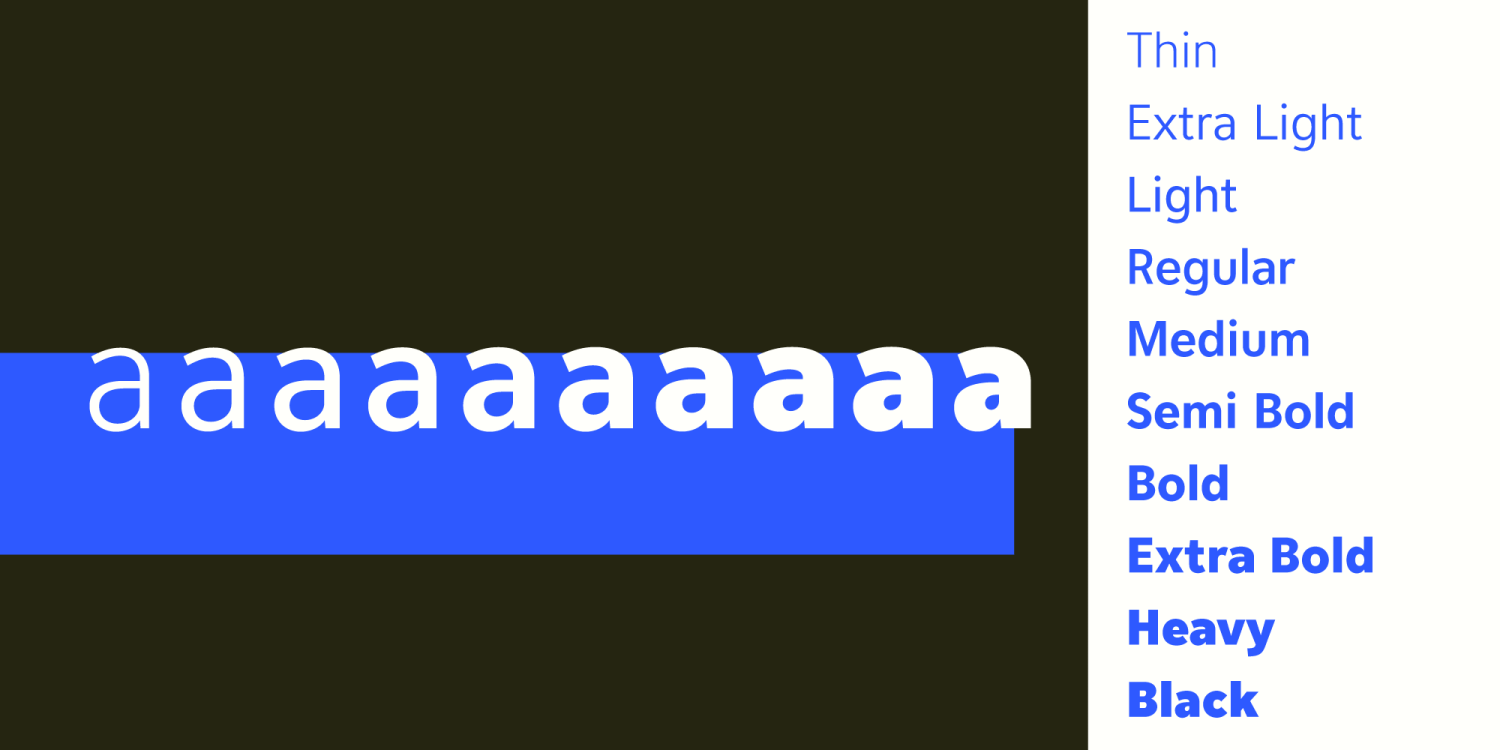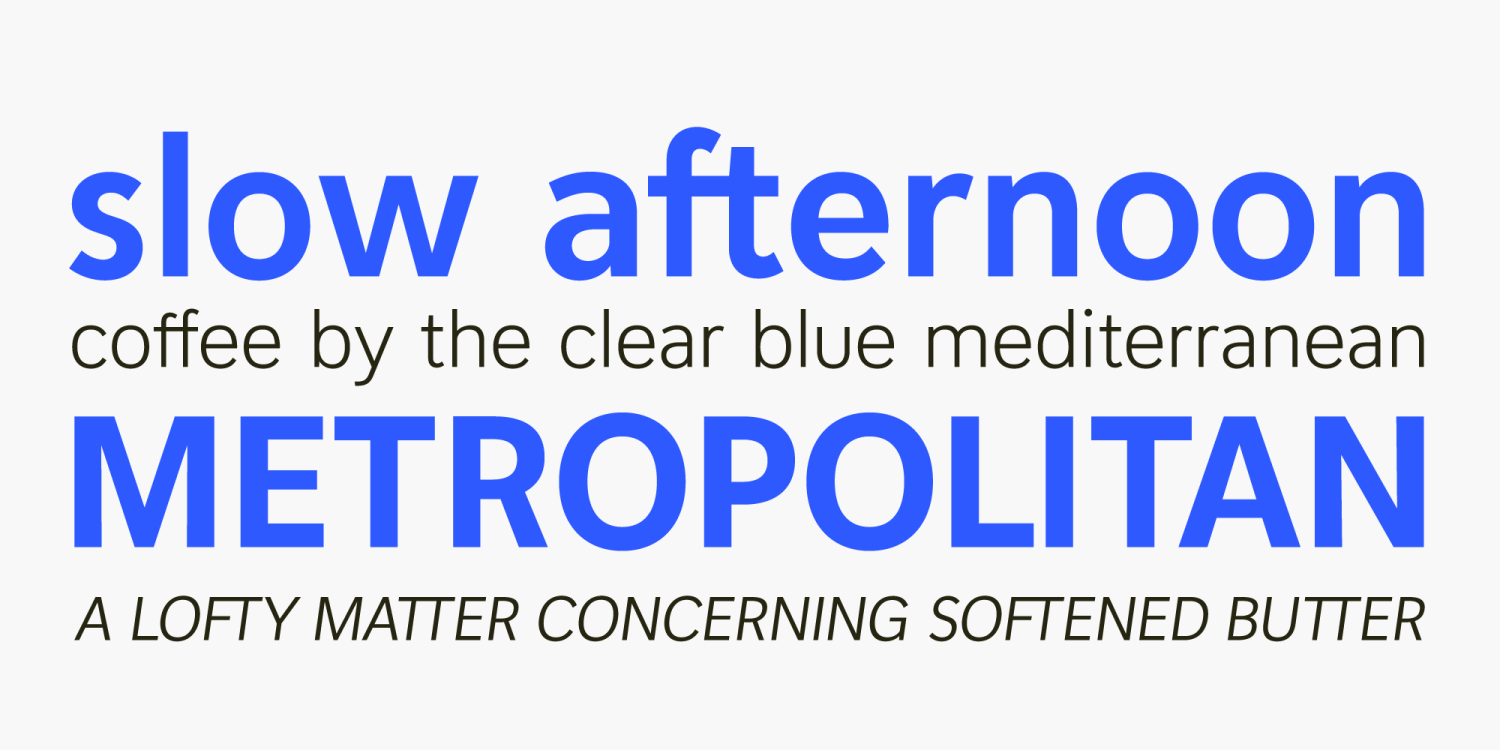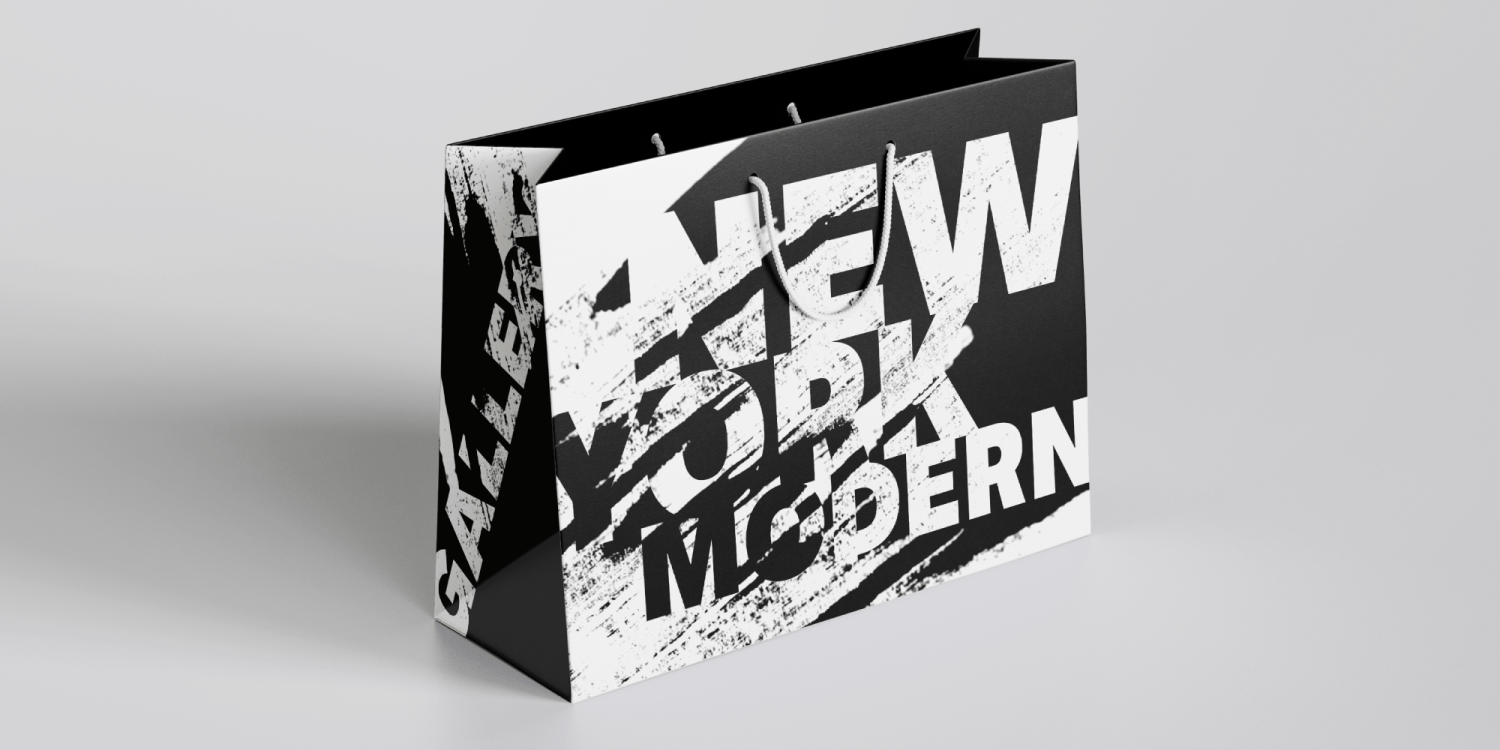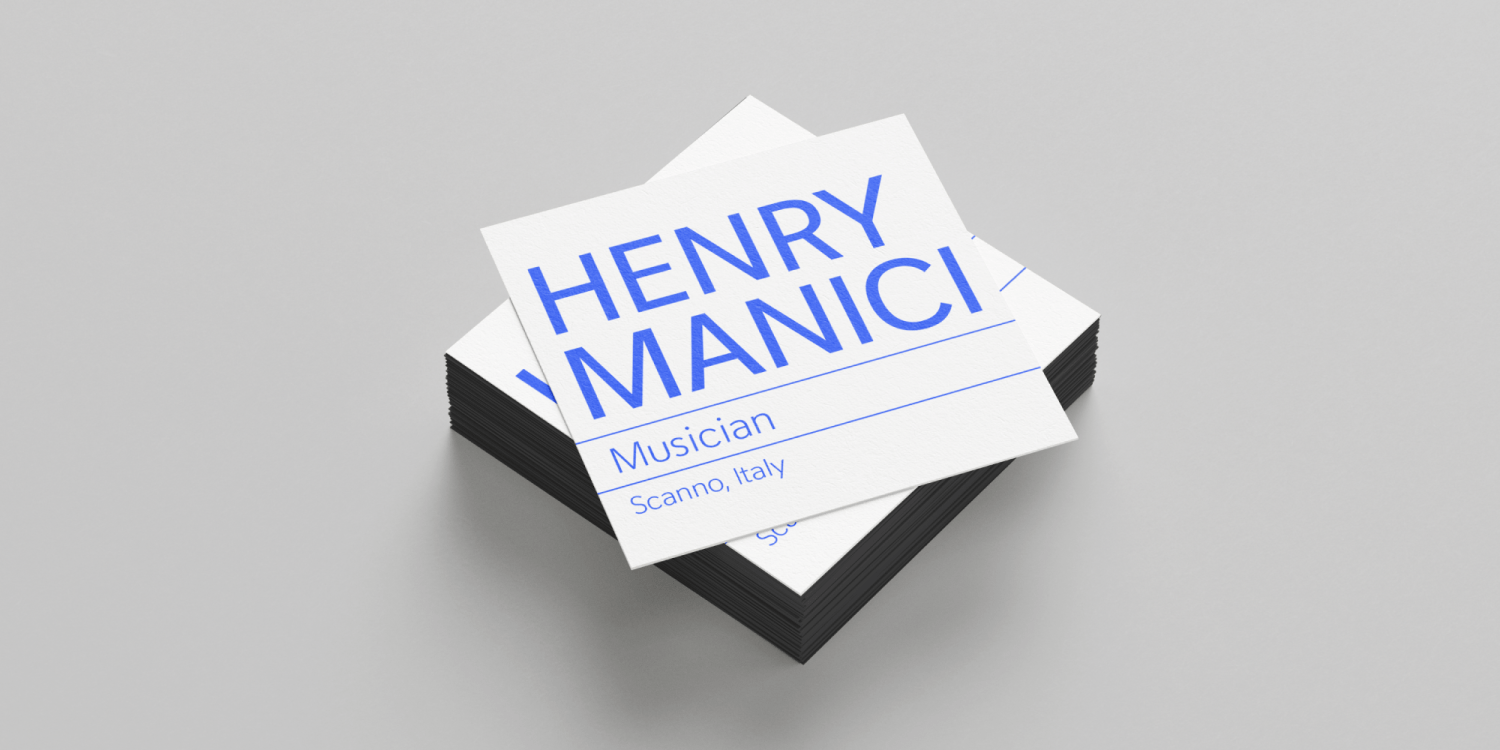
About Scanno
Scanno is a clean and friendly sans serif typeface with gentle confidence. The humanist and geometric qualities give it a fresh and warm contemporary feel. Its modern tone is a good fit for many graphic design needs and industries. Sectors such as art,…